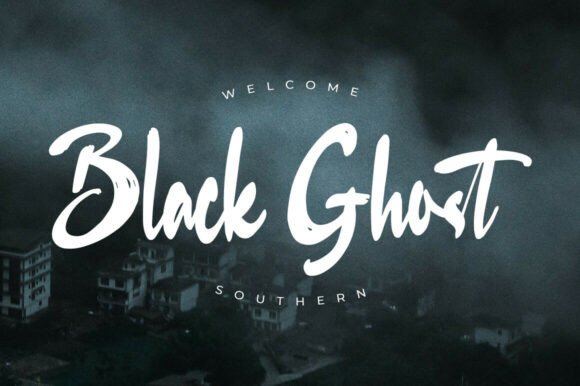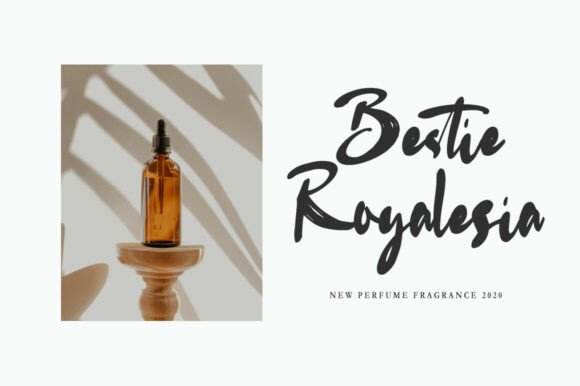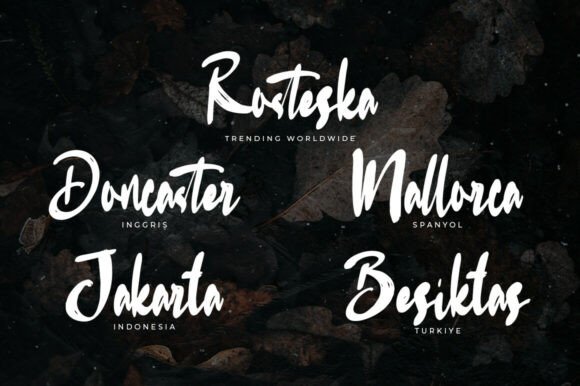
Introduction to Rosteska Font
The Rosteska handwritten script font boasts a bold, dynamic character with fluid brush-like strokes that exude both elegance and confidence.
Its letterforms are crafted with intentional irregularities that mimic authentic handwriting, giving it a spontaneous and expressive feel The sweeping curves and thick-thin contrast bring visual interest and personality to every word it forms, making it a powerful option for designers seeking a personal, handmade touch.
Key Features of Rosteska Font
Why Choose Rosteska Font?